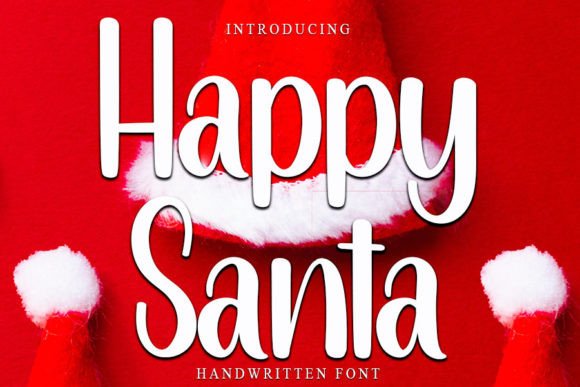
Welcome to the world of Happy Santa Font, a delightful and charming font family that will bring a touch of nostalgia and warmth to your creative projects. Experience the elegance and timelessness of this script font, meticulously crafted by PiPi Creative.
Journey into a bygone era with Happy Santa Font, the perfect companion for vintage designs. Its graceful curves and delicate strokes evoke the charm of yesteryear, adding a touch of sophistication and whimsy to your creations. Whether you're designing wedding invitations, vintage posters, or nostalgic branding materials, Happy Santa Font will transport you to a simpler time.
Let Happy Santa Font infuse your projects with a sense of warmth and nostalgia. Its handwritten style exudes a personal touch, reminiscent of handwritten letters and cherished memories. Embrace the beauty of imperfection as Happy Santa Font adds a touch of authenticity and individuality to your designs.
Unlock the creative possibilities with Happy Santa Font. Its versatility knows no bounds, allowing you to effortlessly craft elegant logos, eye-catching social media graphics, and stunning website designs. With its timeless aesthetic, Happy Santa Font blends seamlessly with various design styles, adding a touch of vintage charm to modern projects.